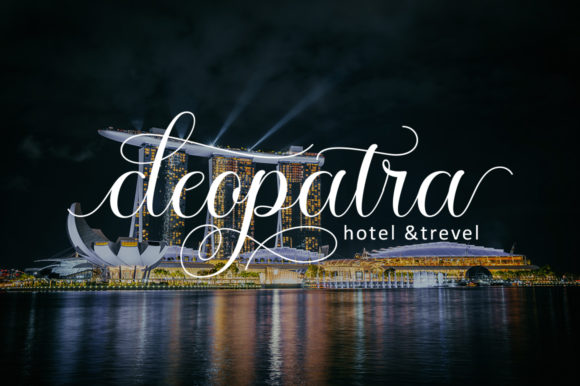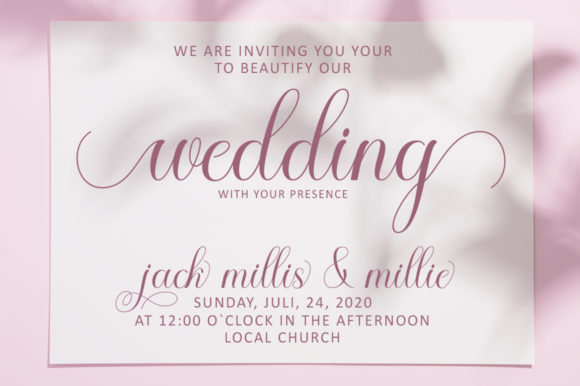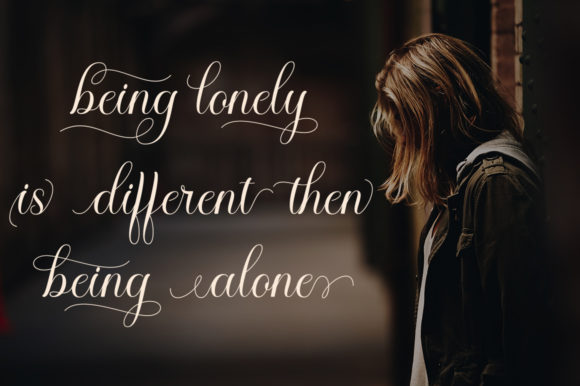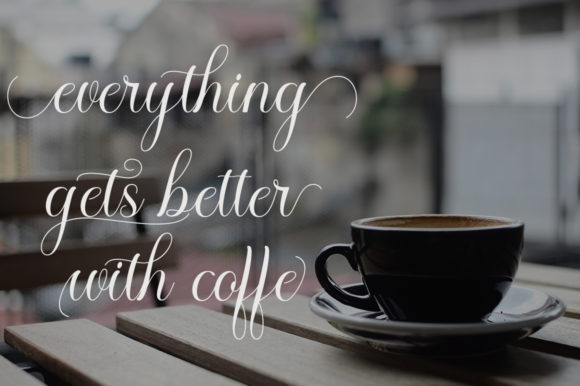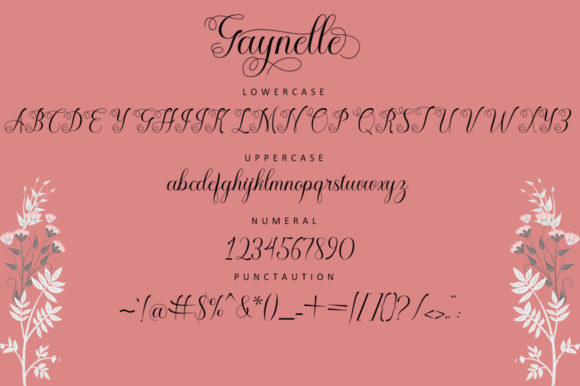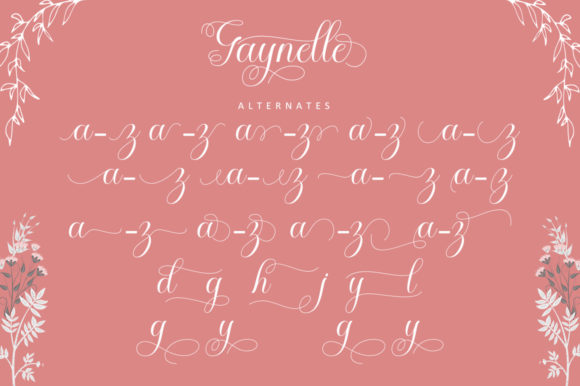
Geynelle Font: The Sweet and Romantic Calligraphy Typeface for Designers and Crafters
Are you a designer or crafter looking for a font that exudes a sweet and romantic vibe? Look no further than Geynelle Font! This beautiful calligraphy typeface is perfect for a variety of design projects, from logos and wedding invitations to titles, t-shirts, and more. In this article, we’ll dive into the features and benefits of Geynelle Font, and explore how it can elevate your designs.
What is Geynelle Font?
Geynelle Font is a stunning calligraphy typeface that boasts a casual yet elegant touch. Its characters dance along the baseline, giving it a playful and whimsical feel. This font is perfect for designers and crafters who want to add a touch of romance and sophistication to their designs.
Key Features of Geynelle Font
- Sweet and Romantic Vibe: Geynelle Font has a unique and captivating charm that makes it perfect for designs that require a touch of elegance and romance.
- Casual yet Elegant: The font’s casual yet elegant touch makes it suitable for a wide range of design projects, from formal to informal.
- PUA Encoded: Geynelle Font is PUA encoded, which means you can access all of the glyphs and swashes with ease. This makes it easy to customize and adapt the font to your design needs.
- Versatile: Geynelle Font can be used for various purposes, including logos, wedding invitations, titles, t-shirts, letterheads, name boards, labels, news, posters, badges, and more.
Use Cases for Geynelle Font
Geynelle Font is an incredibly versatile font that can be used for a wide range of design projects. Here are some use cases to get you started:
- Wedding Invitations: Add a touch of romance and elegance to your wedding invitations with Geynelle Font.
- Logos: Create a unique and captivating logo for your business or brand with Geynelle Font.
- T-Shirts and Apparel: Design custom t-shirts, hoodies, and other apparel with Geynelle Font for a stylish and eye-catching look.
- Posters and Flyers: Use Geynelle Font to create stunning posters and flyers for events, promotions, and more.
- Stationery and Letterheads: Add a touch of elegance to your stationery and letterheads with Geynelle Font.
Benefits of Using Geynelle Font
So why choose Geynelle Font for your design projects? Here are some benefits to consider:
- Unique and Captivating: Geynelle Font has a unique and captivating charm that will set your designs apart from the rest.
- Elegant and Sophisticated: The font’s elegant and sophisticated feel makes it perfect for designs that require a touch of luxury and refinement.
- Easy to Use: Geynelle Font is PUA encoded, making it easy to access and use all of the glyphs and swashes.
- Versatile: The font’s versatility makes it suitable for a wide range of design projects, from formal to informal.
In conclusion, Geynelle Font is a stunning calligraphy typeface that is perfect for designers and crafters looking for a sweet and romantic vibe. Its casual yet elegant touch, PUA encoding, and versatility make it an excellent choice for a wide range of design projects. Whether you’re designing wedding invitations, logos, t-shirts, or more, Geynelle Font is sure to elevate your designs and add a touch of elegance and sophistication.